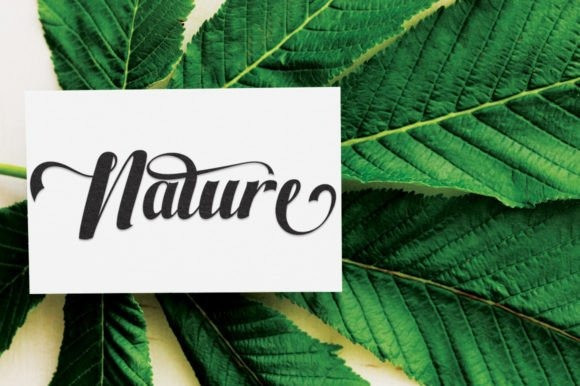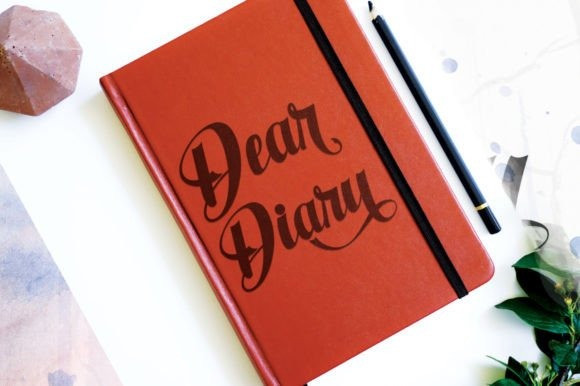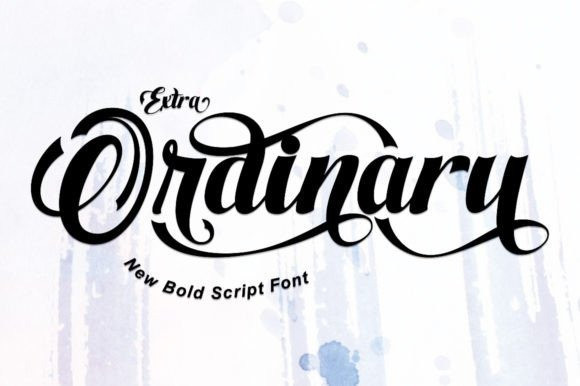
Extra Ordinary Font
Extra Ordinary Calligraphy Font is a gorgeous bold script font that will make your work stand out through its elegant and curvy lines. It is perfect for product packaging, branding project, magazine covers, social media, weddings, or just used to express words above the background. This font is PUA encoded, which means you can access all of the glyphs and swashes with ease!